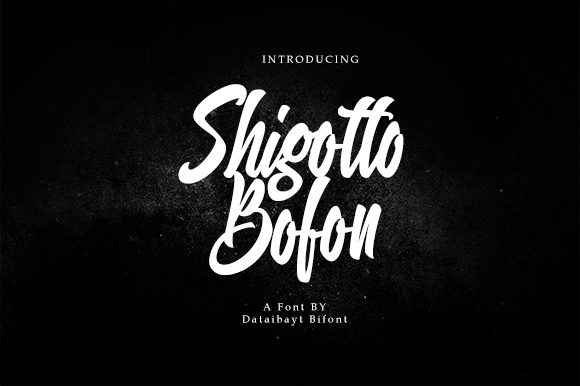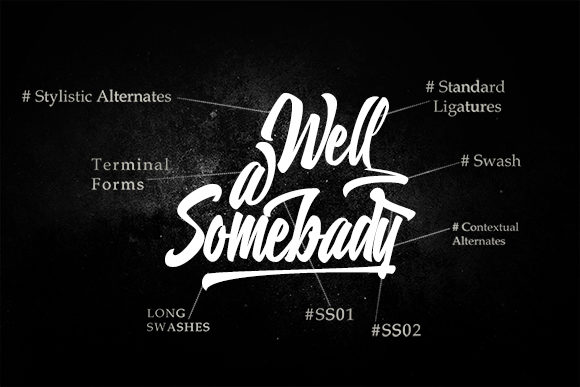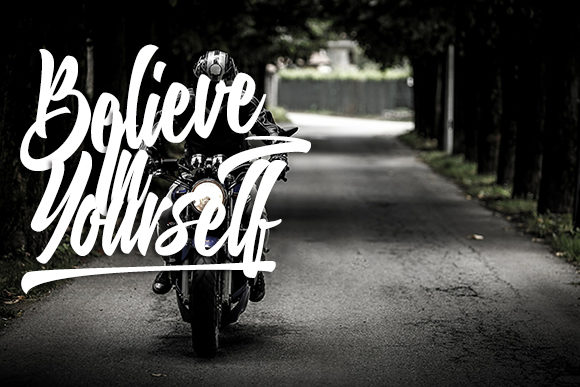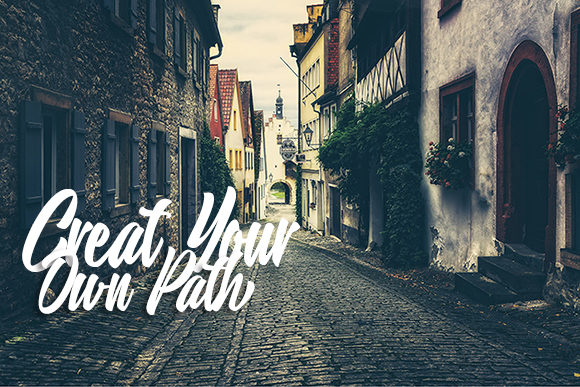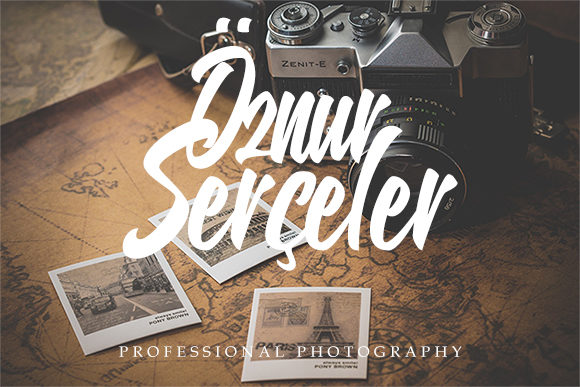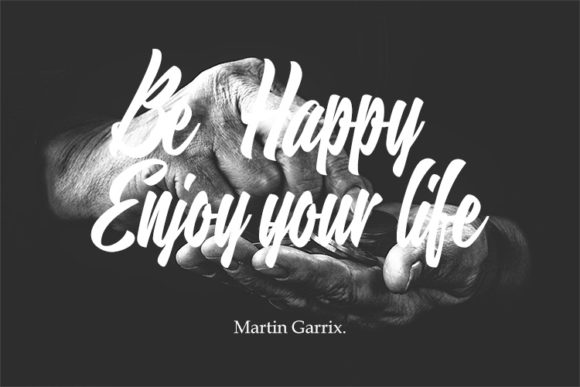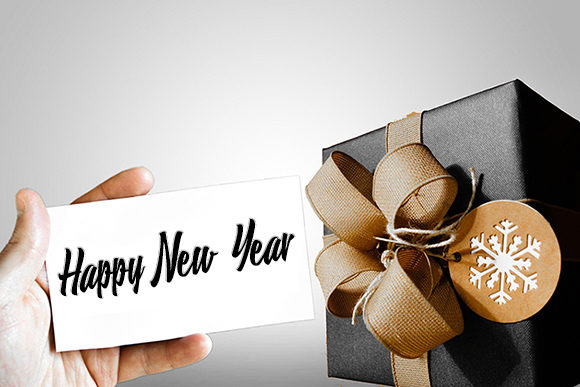
Shigutto Bofon Font
About Shigutto Bofon Font
Shigutto Bofon is a stunning script with a modern approach to design. Use it to add an authentic touch to any design project!